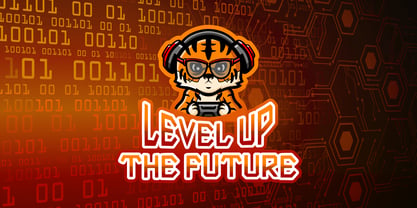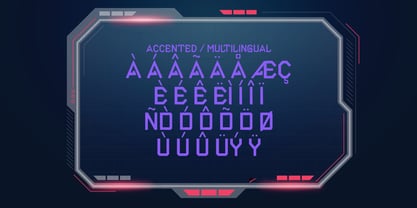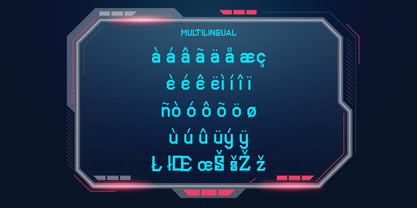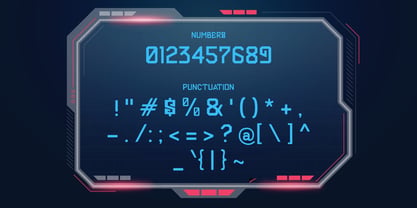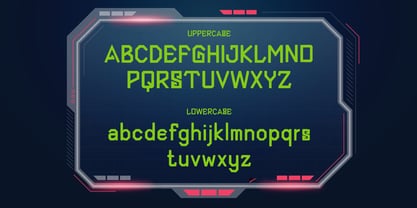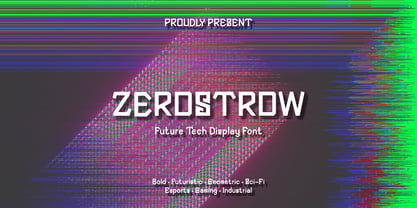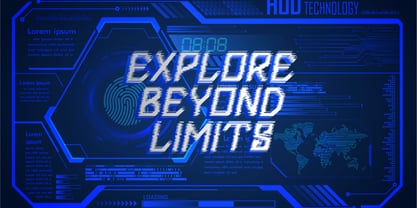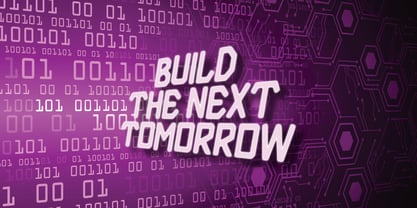
Zerostrow
von Mei Suseno
Die Schriftfamilie Zerostrow wurde von Wahyu Eka Prasetya, Mei Suseno entworfen und von Mei Suseno veröffentlicht. Zerostrow enthält 2 Stile und Familienpaketoptionen. Mehr über diese Familie
ZEROSTROW is a bold futuristic display font inspired by cyber technology, sci-fi aesthetics, and modern gaming culture. Featuring sharp geometric edges and clean angular cuts, it delivers a powerful, high-tech appearance that instantly grabs attention. Perfect for esports logos, gaming titles, movie posters, tech branding, futuristic packaging, user interfaces, apparel, and digital projects, ZEROSTROW combines a strong industrial style with excellent readability. Its unique letterforms make it an ideal choice for designers looking to create striking visuals with a modern, innovative, and cutting-edge personality
Designer: Wahyu Eka Prasetya, Mei Suseno
Foundry: Mei Suseno